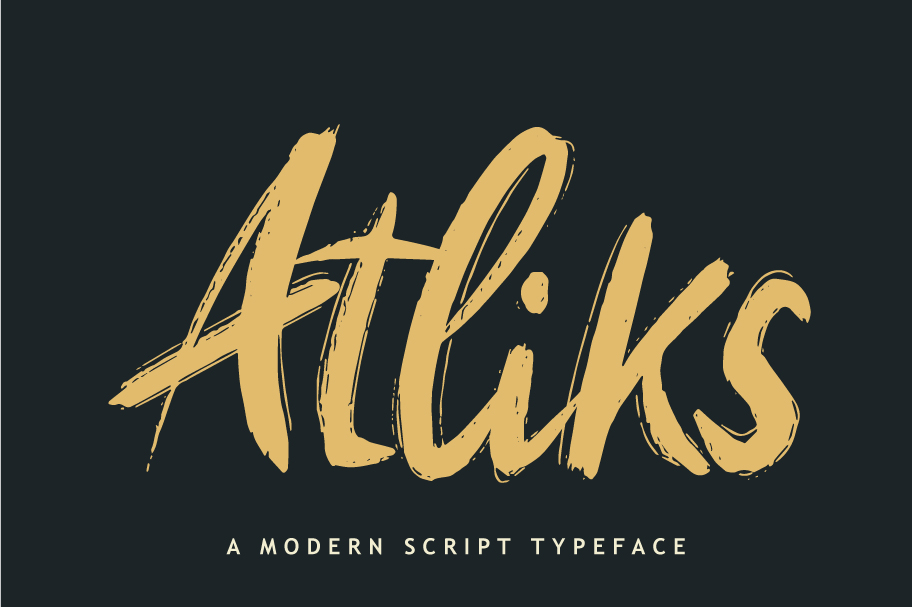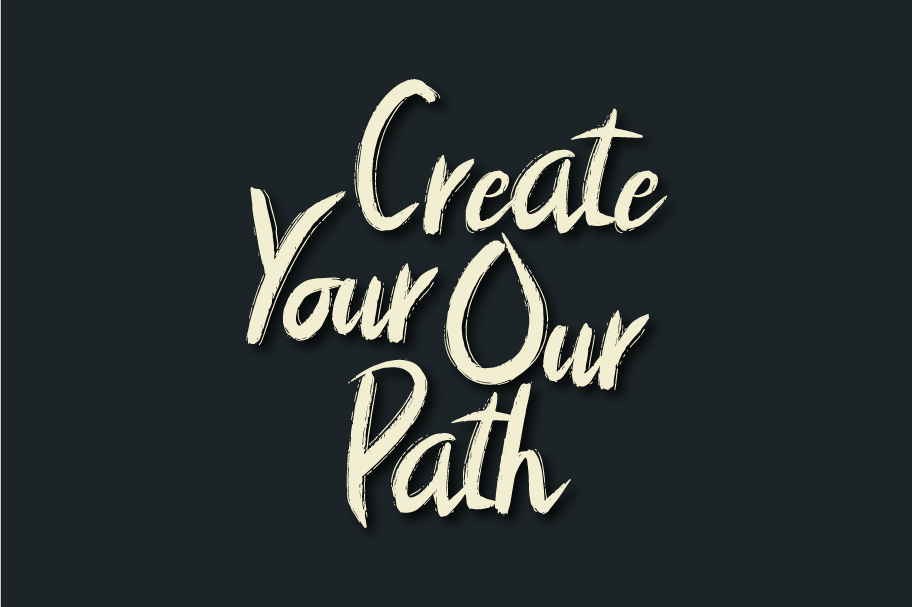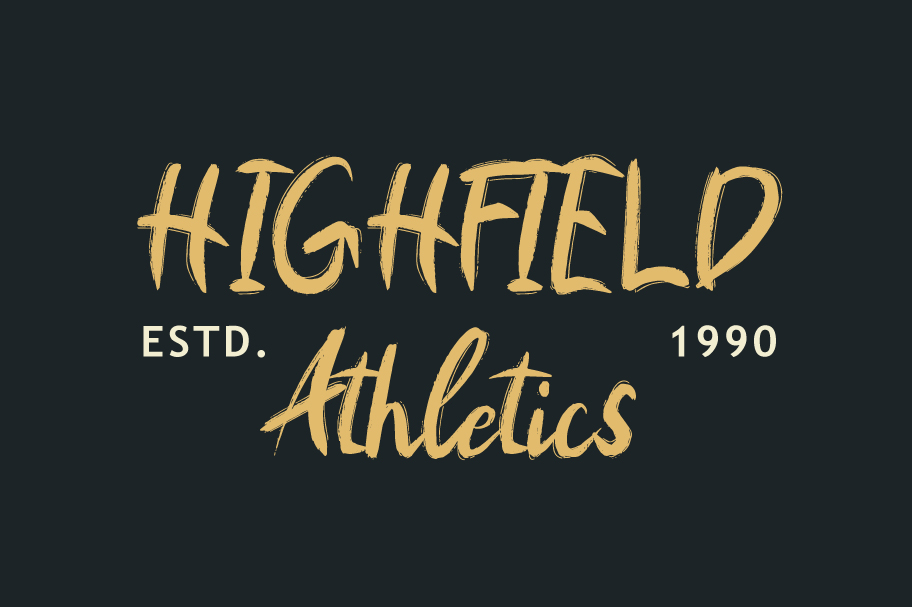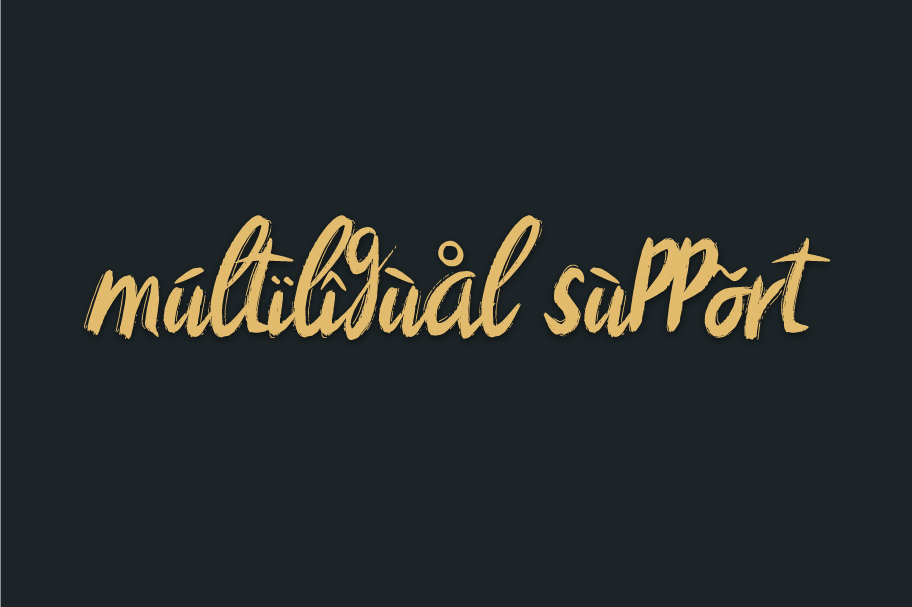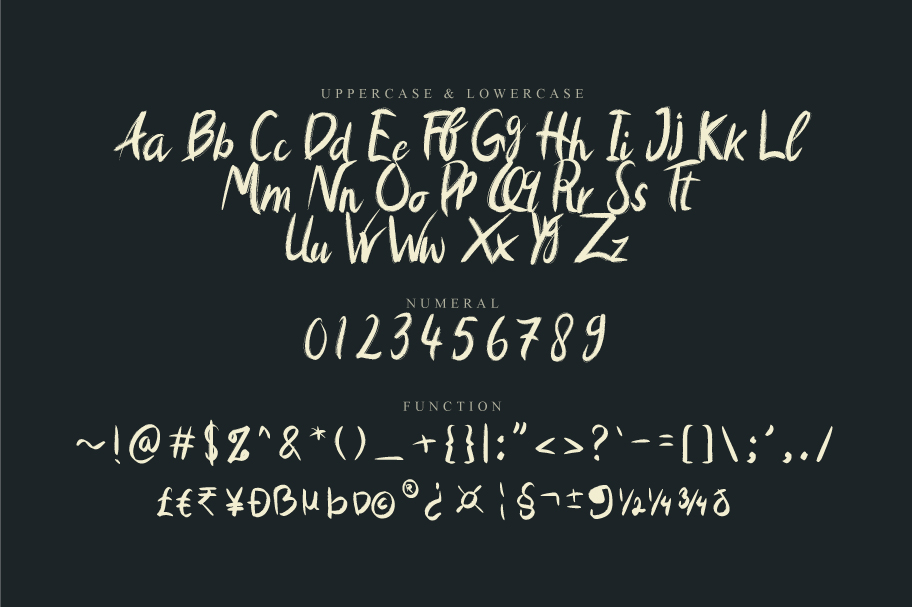
Atliks Font
Atliks Brush Font
This is a cool, brushed and expressive, street styled handwritten font. It’s a bold choice of typography ideal for delivering a confident, custom-made style to your design projects.